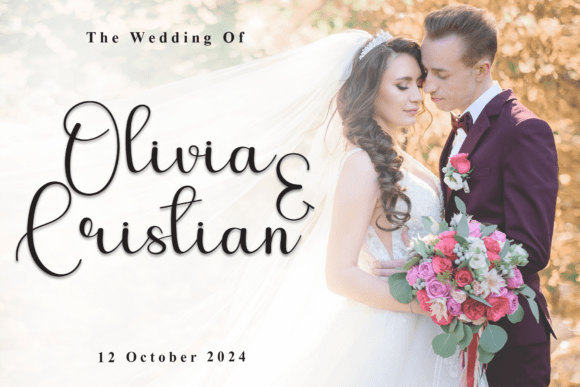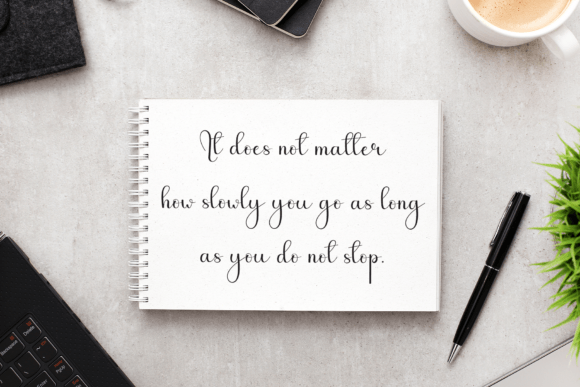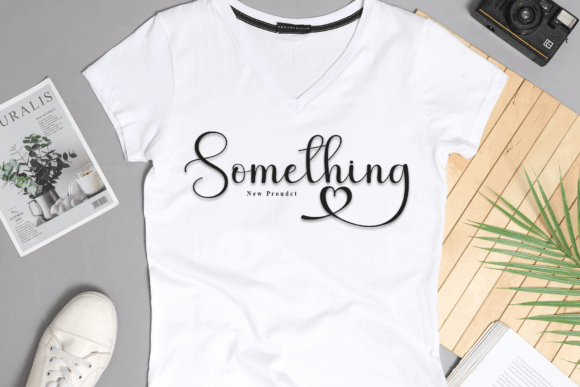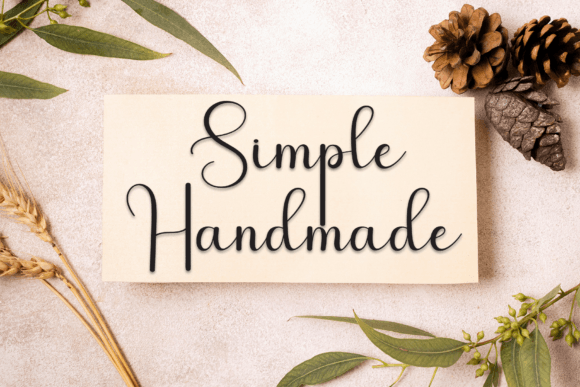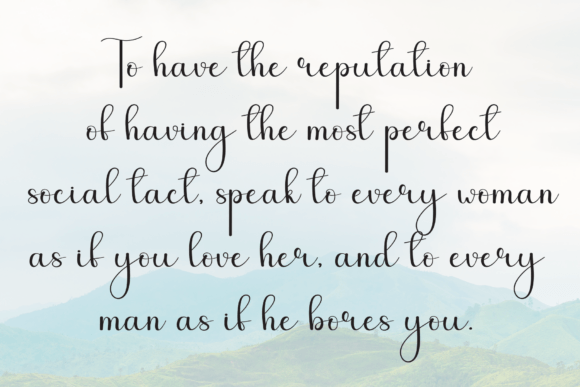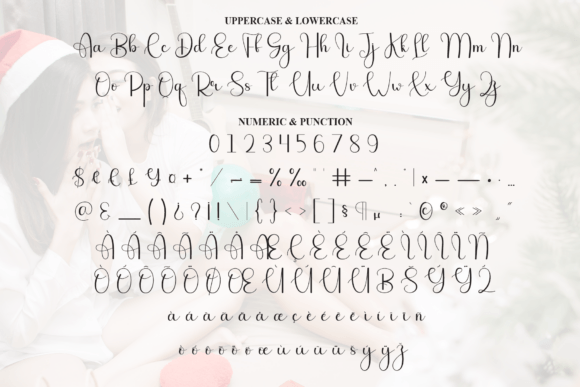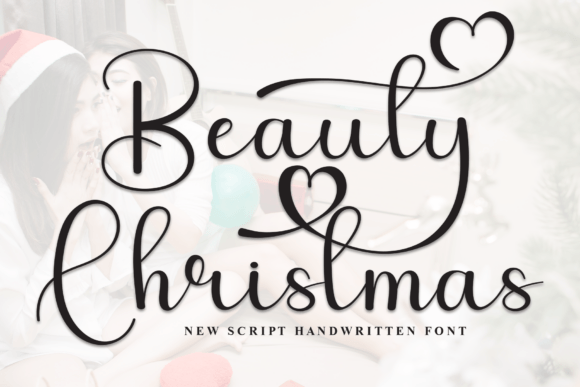
Introducing the Beauty Christmas Font: A Whimsical Charm for Your Designs
Welcome to a world of whimsical charm with the Beauty Christmas Font, a beautifully handcrafted display font that radiates warmth and approachability. This extraordinary font is designed to bring a touch of magic to your designs, masterfully walking the tightrope between adorable and vivacious. Whether you’re a designer, crafter, or DIY enthusiast, this font is the go-to resource for genuine, welcoming designs that capture the essence of the holiday season.
A Perfect Blend of Style and Whimsy
The Beauty Christmas Font is a true showstopper, boasting a unique blend of style and whimsy that’s sure to make your designs stand out. Its handcrafted charm injects an intriguing spin on your creative endeavors, seamlessly interweaving a spirit of amusement into your typography. With this font, you can add a dash of festive flair to your projects, making them perfect for romantic wedding invitations, heartfelt greeting cards, and any artwork that calls for a sparkling and buoyant touch.
The Beauty Christmas Font is incredibly versatile, making it suitable for a wide range of design applications. Here are just a few ideas to get you started:
- Wedding Invitations: Add a touch of romance and whimsy to your wedding invitations, save-the-dates, and thank-you cards.
- Greeting Cards: Create heartfelt and festive greeting cards for Christmas, birthdays, and other special occasions.
- Holiday Decor: Use the Beauty Christmas Font to create festive holiday decor, such as garlands, banners, and signs.
- Digital Art: Add a dash of magic to your digital art, including illustrations, graphics, and social media posts.
Key Features of the Beauty Christmas Font
The Beauty Christmas Font boasts a range of features that make it a standout choice for designers and crafters. Some of its key features include:
- Handcrafted Design: Each letter has been carefully crafted to ensure a unique and whimsical feel.
- Display Font: Perfect for headlines, titles, and other display text.
- Warm and Approachable: Radiates warmth and approachability, making it perfect for designs that require a personal touch.
- Scalable: The font is highly scalable, making it suitable for a wide range of design applications.
Why Choose the Beauty Christmas Font?
With so many fonts available, why choose the Beauty Christmas Font? Here are just a few reasons why this font stands out:
- Unique and Whimsical: The Beauty Christmas Font offers a unique and whimsical feel that’s sure to make your designs stand out.
- High-Quality: The font is of exceptionally high quality, ensuring that your designs look professional and polished.